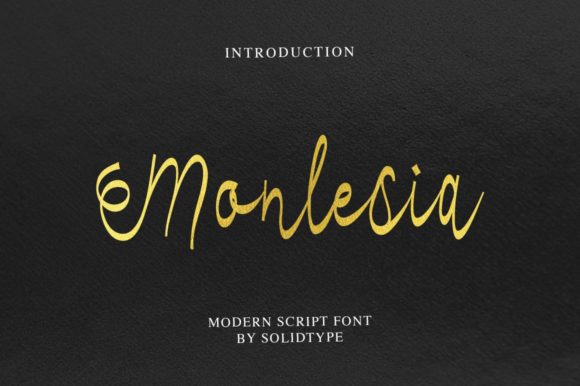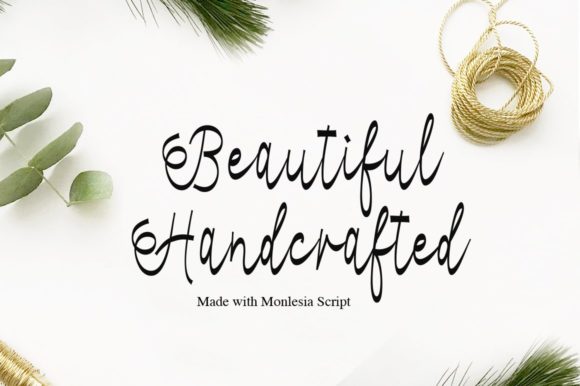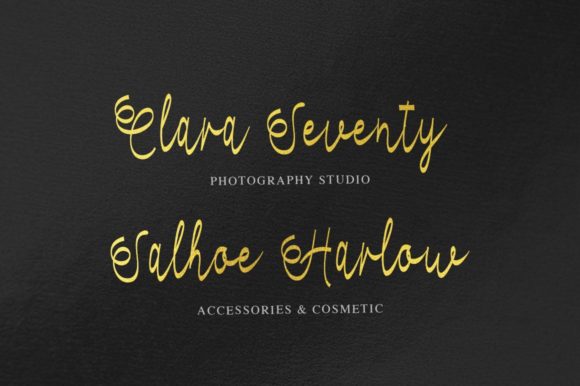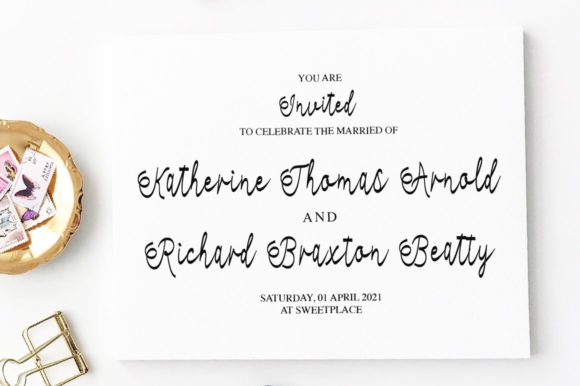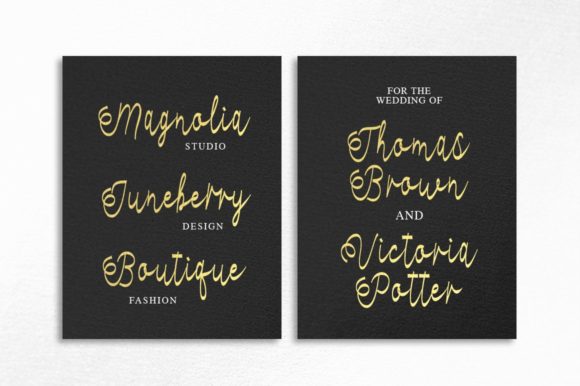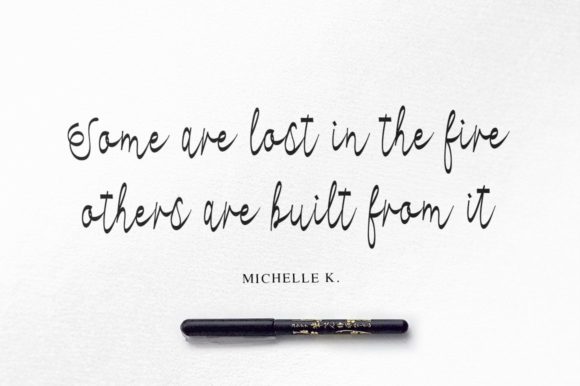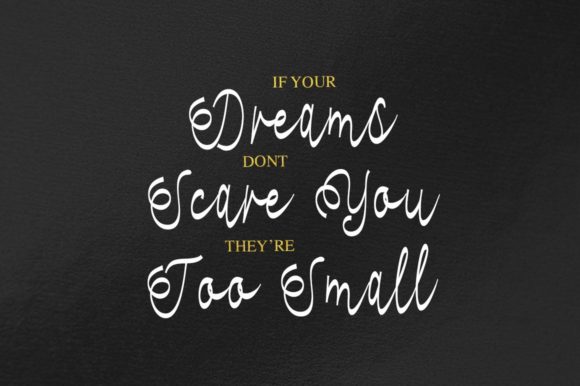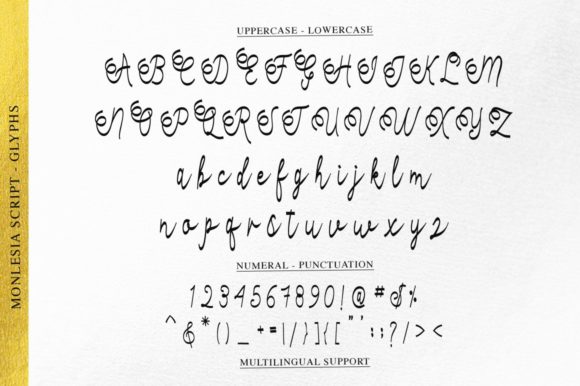
Monlesia Font
About Monlesia Font
Monlesia is a whimsical handwritten font, with a nostalgic touch.
It looks breathtaking on a wide range of projects, from logos, to greeting cards, branding, quotes, prints, invitations and so much more!